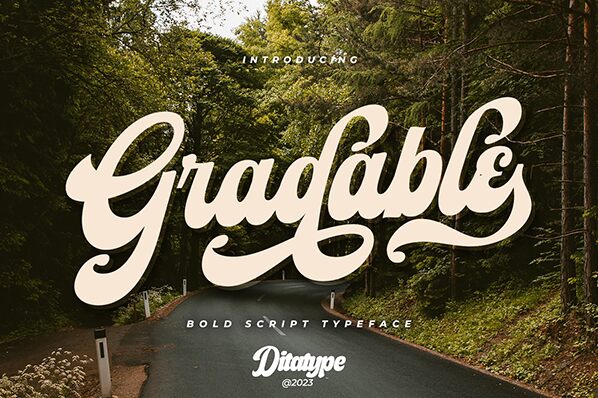
Gradable font by Ditatype is a bold retro brush font that embodies a distinct vintage charm. With its flowing elegance and expressive style, it captures the essence of classic influences, evoking nostalgia and sophistication. The carefully crafted design pays tribute to timeless aesthetics and seamlessly blends traditional appeal with modern flair.